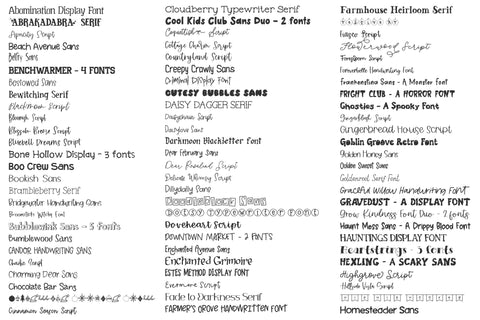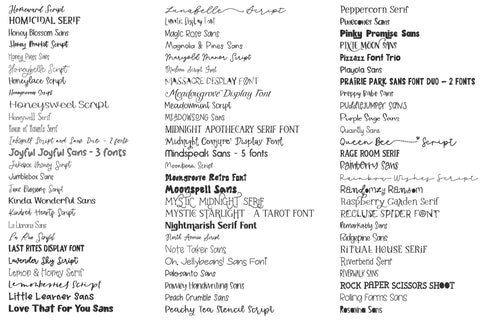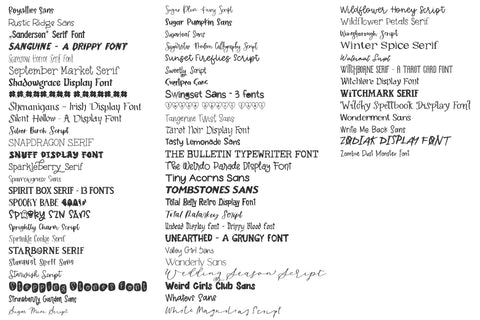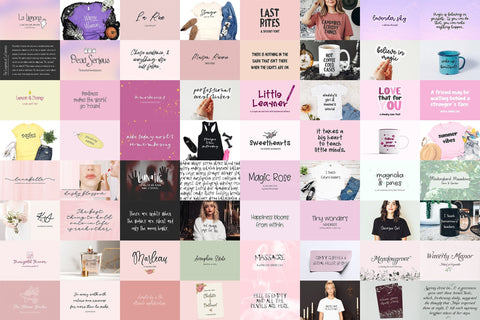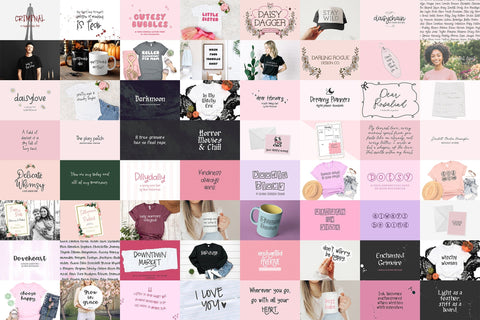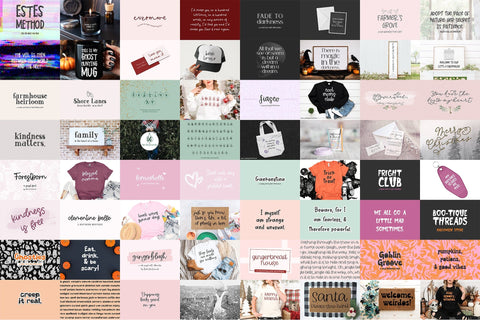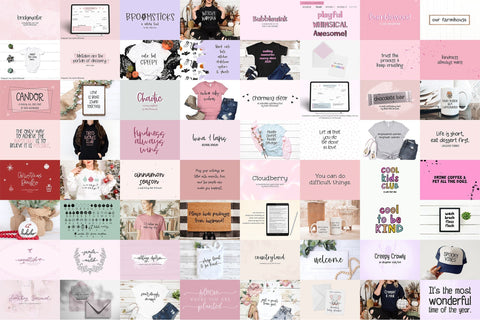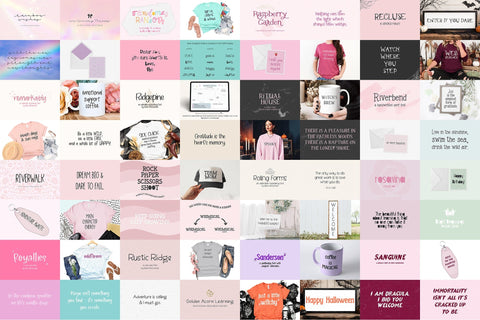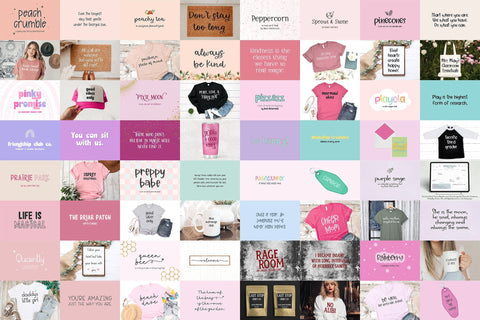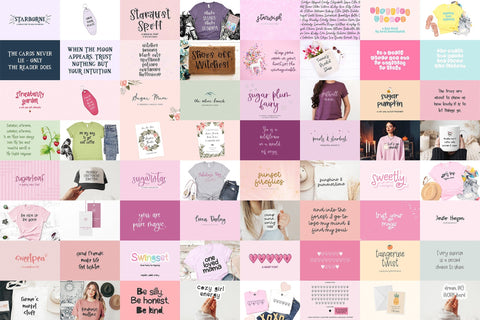
Handlettered Font Bundle Volume 2
This bundle includes 260+ hand-lettered fonts created from July 2023 through September 2026, with a huge variety of styles to choose from. You'll find handwritten, script, cursive, calligraphy, serif, sans serif, display, retro, typewriter, blackletter, and other decorative fonts for all kinds of creative projects.
What’s included:
This collection brings together my more recent fonts in one big bundle, with a mix of styles for crafting, design, and everyday lettering projects.
You'll find:
• Handwritten and handwriting fonts
• Script and cursive fonts
• Calligraphy fonts
• Serif and sans serif fonts
• Display and decorative fonts
• Retro and vintage-inspired styles
• Typewriter and blackletter fonts
• Holiday and seasonal fonts
• Halloween and spooky fonts
• Christmas fonts
• Floral, farmhouse, rustic, and nature-inspired styles
• Sports and playful fonts
• Doodle and specialty fonts
• Font families, duos, and multi-style sets
The fonts you’ll receive are:
Abomination Display Font
Abrakadabra Serif
Apricity Script
Beach Avenue Sans
Belfry Sans
Benchwarmer Sports Font Family - 4 fonts
Bestowed Sans
Bewitching Serif
Blackmoon Script
Bloomish Script
Blossom Breeze Script
Bluebell Dreams Script
Bone Hollow Display - 3 fonts
Boo Crew Sans
Bookish Sans
Brambleberry Serif
Bridgewater Handwriting Sans
Broomsticks Witchy Font
Bubblewink Sans - 5 fonts
Bumblewood Sans
Candor Handwriting Sans
Chaotic Script
Charming Dear Sans
Chocolate Bar Sans
Christmas Doodles Font
Cinnamon Season Script
Cloudberry Typewriter Serif
Cool Kids Club Sans Duo - 2 fonts
Coquettish Script with Swashes
Cottage Charm Script
Countryland Script
Creepy Crawly Sans
Criminal Display Font
Cutesy Bubbles Sans
Daisy Dagger Serif
Daisychain Script
Daisylove Sans
Darkmoon Blackletter Font
Dear February Sans
Dear Rosalind Script
Delicate Whimsy Script
Dillydally Sans
Doodleblock Sans
Dotsy Typewriter Font
Doveheart Script
Downtown Market Handwriting Font - 2 fonts
Enchanted Avenue Sans
Enchanted Grimoire - A Display Font
Estes Method Display Font
Evermore Script
Fade to Darkness Serif
Farmer's Grove Handwritten Font
Farmhouse Heirloom Serif
Festive AF Christmas Ornament Font
Fiasco Script
Flowerwood Script
Forestborn Script
Foreverbelle Handwriting Font
Frankenstina Sans - A Monster Font
Fright Club - A Horror Font
Ghosties - A Spooky Font
Gingerblush Script
Gingerbread House Script
Goblin Groove Retro Font
Golden Honey Sans
Golden Sunset Sans
Goldenroot Serif Font
Graceful Willow Handwriting Font
Gravedust - A Scary Display Font
Grow Kindness Font Duo - 2 fonts
Haunt Mess Sans - A Drippy Blood Font
Hauntings Display Font
Heartstrings Serif - 3 fonts
Hexling - A Scary Sans
Highgrove Script
Hillside Vista Script
Hip Hip Hooray Banner Font
Homesteader Sans
Homeward Script
Homicidal Serif
Honey Blossom Sans
Honey Market Script
Honey Pines Sans
Honeybelle Script
Honeylace Script
Honeymooner Script
Honeysweet Script
Honeywell Serif
House of Haunts Serif
Inkspill Script and Sans Duo - 2 fonts
Joyful Joyful Sans - 3 fonts
Jukebox Money Script
Jumblebox Sans
June Blossoms Script
Kinda Wonderful Sans
Kindred Hearts Script
La Llorona Sans
La Rue Script
Last Rites Display Font
Lavender Sky Script
Lemon & Honey Serif
Lemonberries Script
Little Learner Sans
Love That For You Sans
Lunabelle Script Font
Lunatic Display Font
Magic Rose Sans
Magnolia & Pines Sans
Marigold Manor Script
Marleau Script Font
Massacre Display Font
Meadowgrove Calligraphy Display Font
Unearthed - A Grungy Font
Valley Girl Sans
Wanderly Sans
Wedding Season Script
Weird Girls Club Sans
Whatevs Sans
White Magnolias Script
Wildflower Honey Script
Wildflower Petals Serif
Winesborough Script
Winter Spice Serif
Wintermint Script
Witchborne Serif - A Tarot Card Font
Witchlore Display Font
Witchmark Serif - A Tarot Font
Witchy Spellbook Display Font
Wonderment Sans
Write Me Back Sans
Zodiak Display Font
Zombie Dust Monster Font